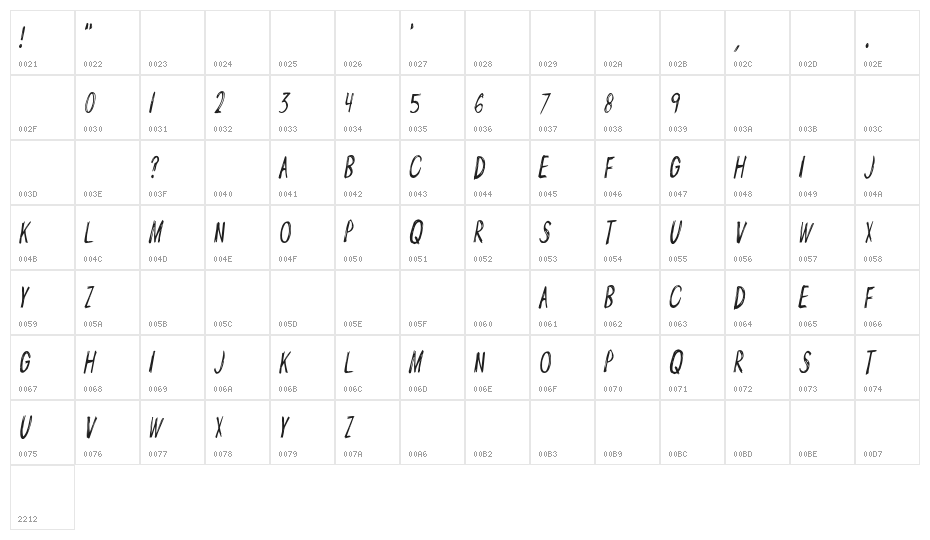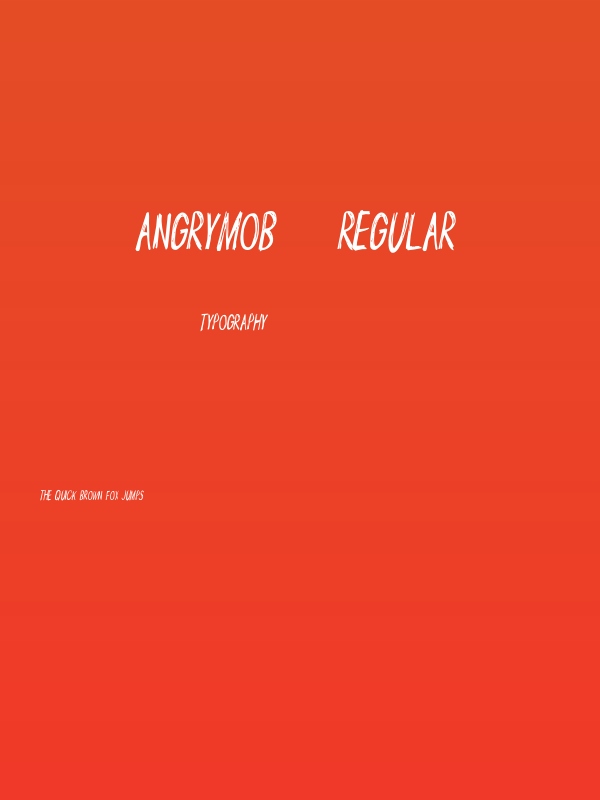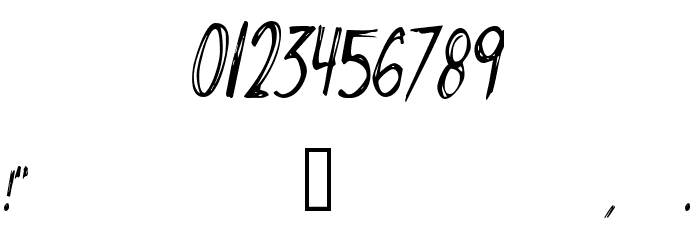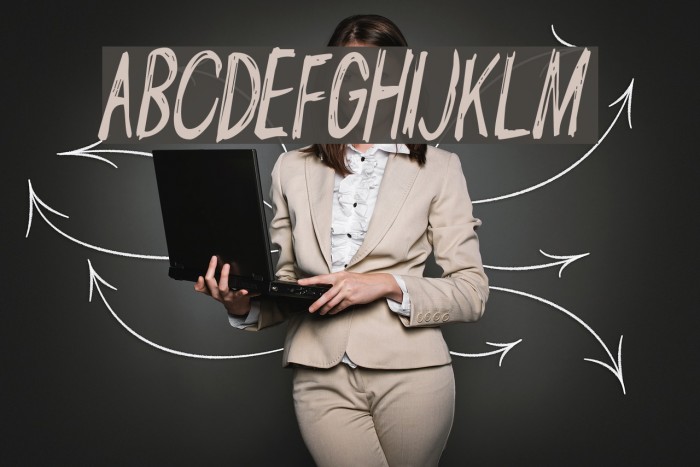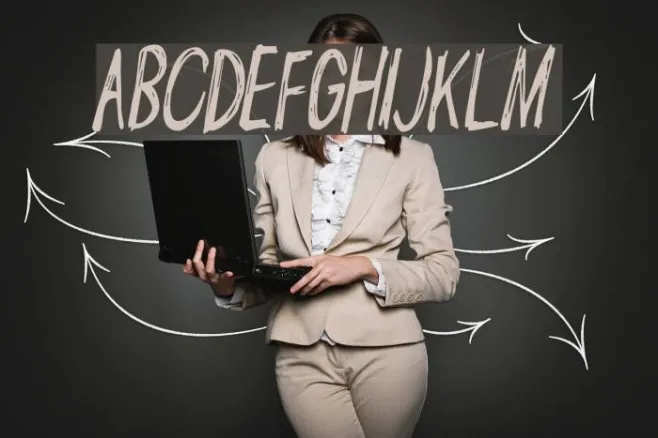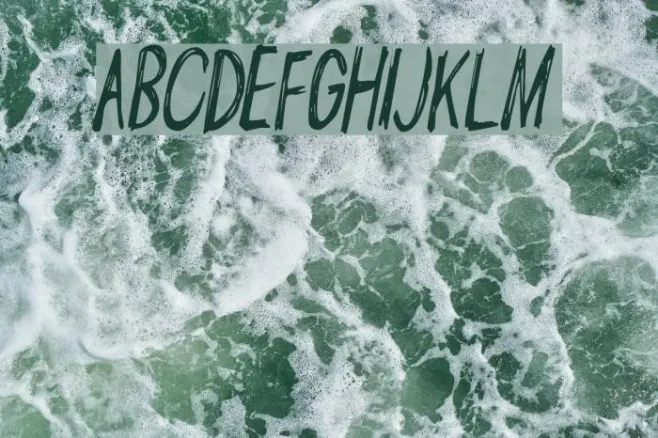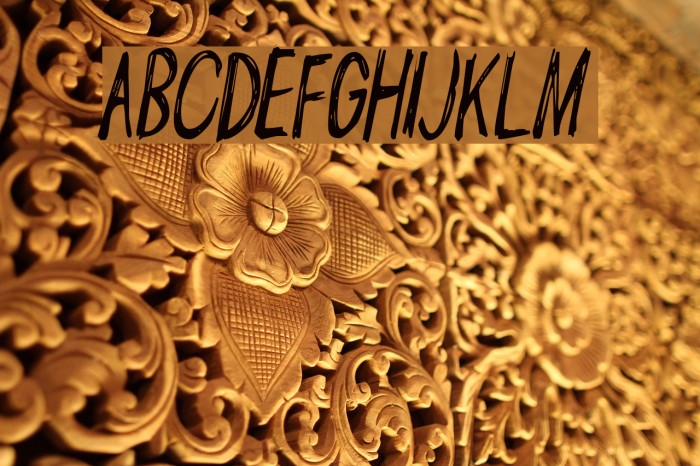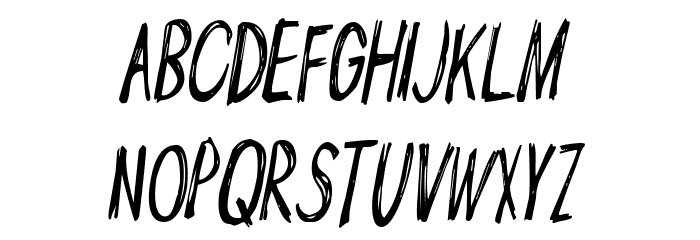
AngryMob-Regular Font
AngryMob-Regular Description
This font features a bold and dynamic style with a hand-drawn appearance, characterized by sharp, angular strokes and a slightly irregular baseline. The letters have a sense of motion and energy, making them stand out with a rebellious flair. The uppercase and lowercase letters maintain a consistent style, while the numbers and special characters complement the overall design. The font's edgy and expressive nature makes it suitable for projects that require a strong visual impact.
| Overall Style | Modern, Edgy |
| Proposed Projects | Ideal for posters, album covers, graffiti art, and branding that requires a bold statement. |